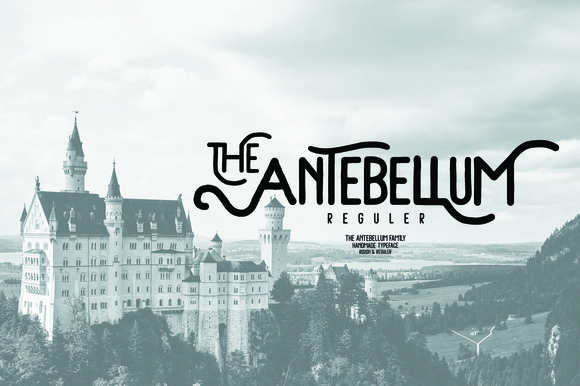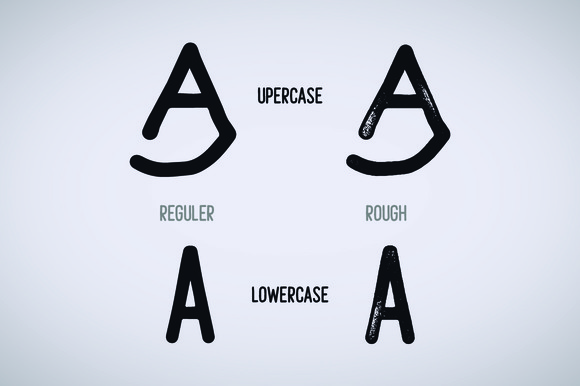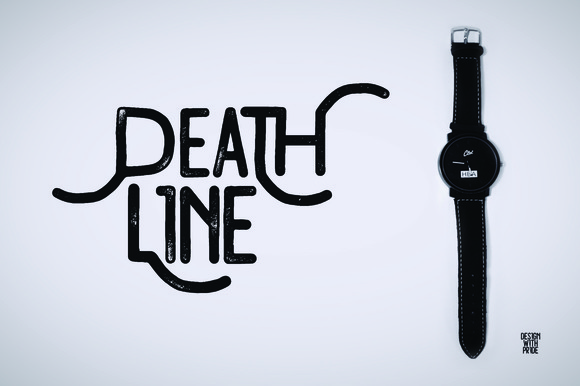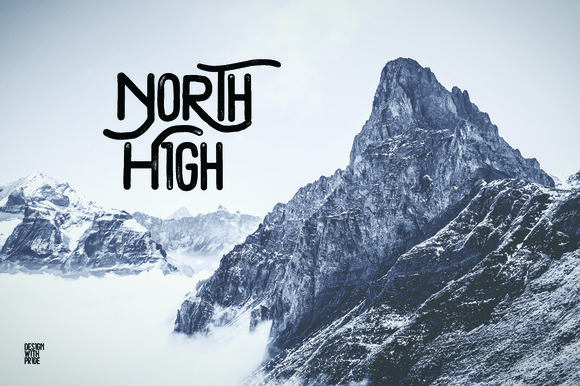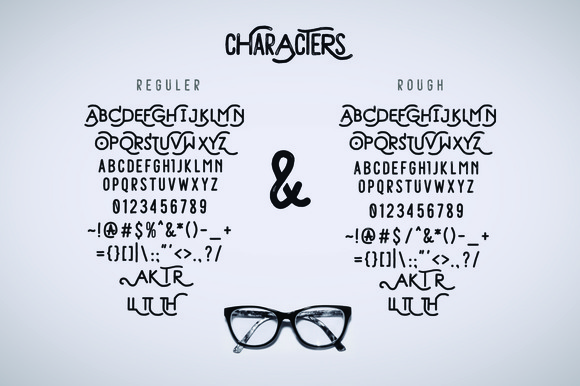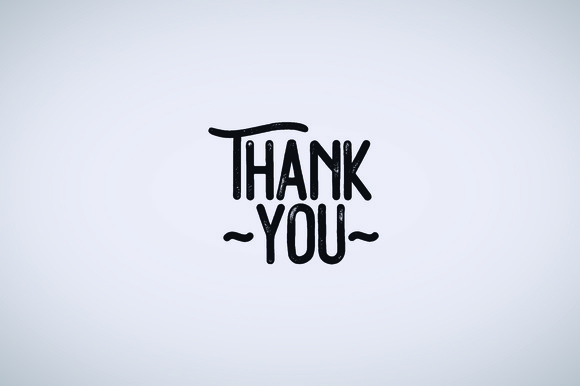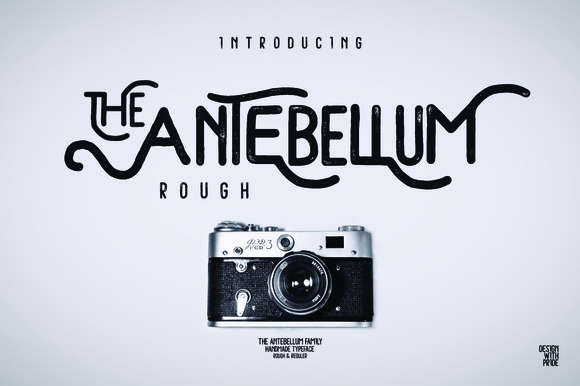
Atebellum Family Font
The ANTEBELLUM is a vintage inspired display font family, ANTEBELLUM comes in regular and rough versions. and FREE VECTOR GRAPHIC AND BADGES Use for awesome display, labeling, clothing, movie sceen, party poster, movie title, gigs, album covers, logos, and much more.